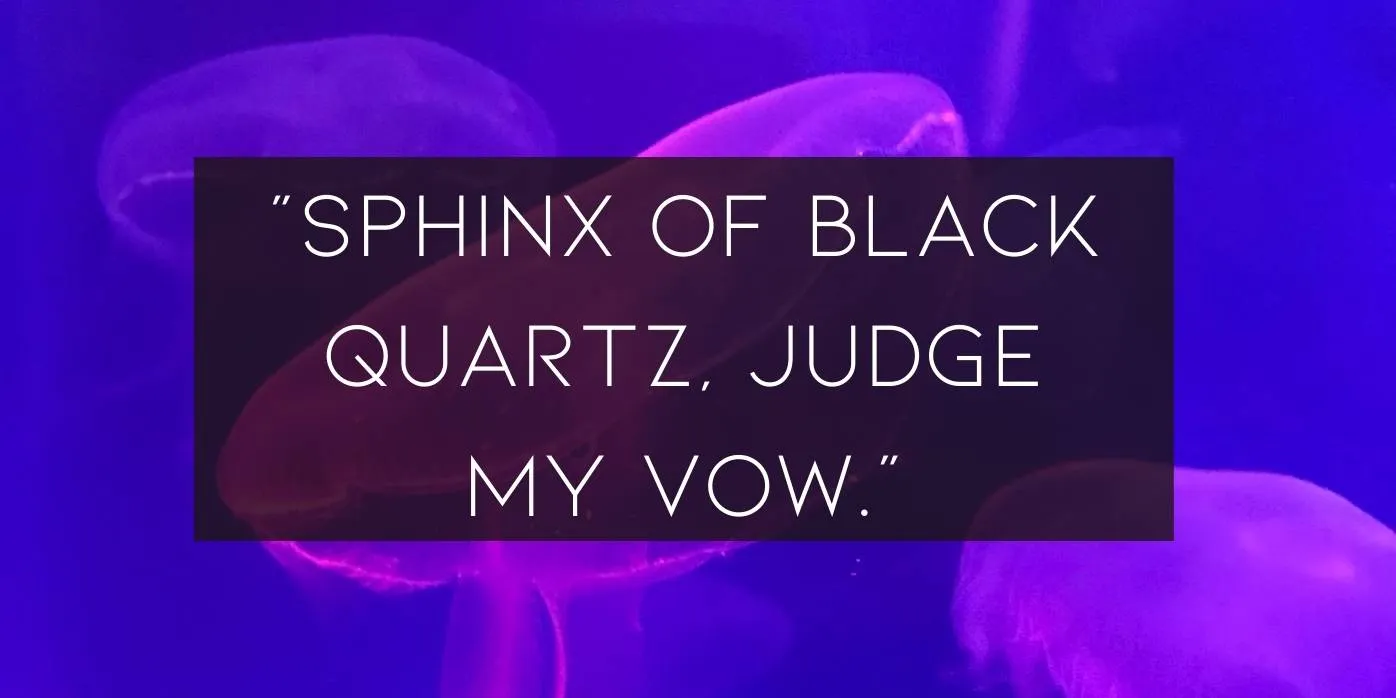
Kiona Font
Kiona Font was developed by very well-known designer Ellen Luff. It belongs to the Sans-Serif typeface. This awesome font is very legible and perfect for online reading. It is one of the most popular fonts on the web and is widely shown the best result for many bloggers, online publishers, and web designers.
This typeface has four special and common weights are light, book, medium, and black. This typeface is specified by the CSS Family. It Bold style makes it standard. Highway Gothic Font is very famous similar to this typeface.
However, this staggering font is suitable for all types of design projects because its letterforms are quite simple and geometric. This cozy font family is perfect for headlines, body text, and even logos. Its copy and paste function is Soo much the best and most attractive. This Font Family has 4 weights and each weight has about 420 glyphs.
The main reason for the uniqueness of this typeface is the smooth edges on letters that make Kiona look very modern and stylish.